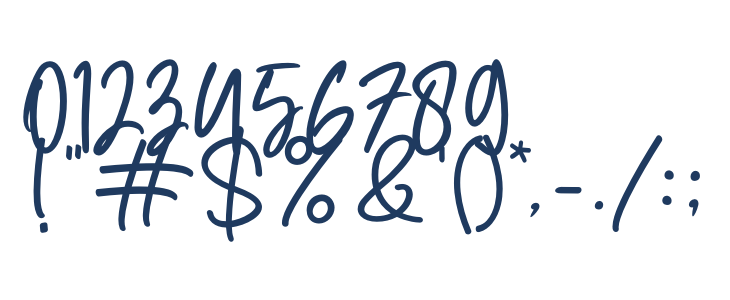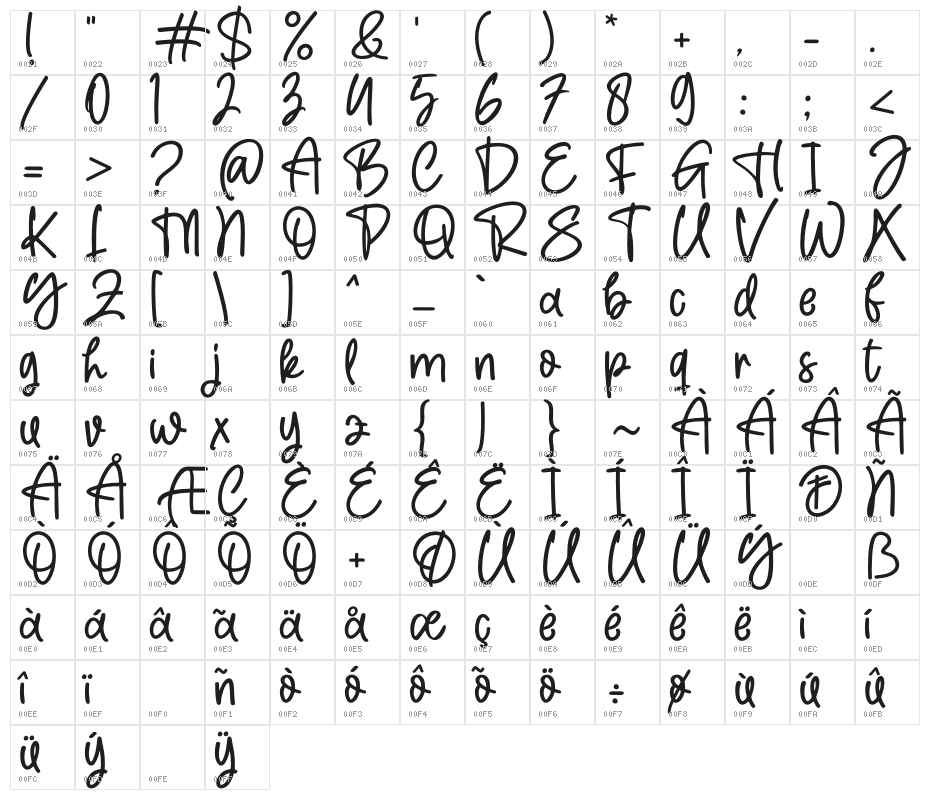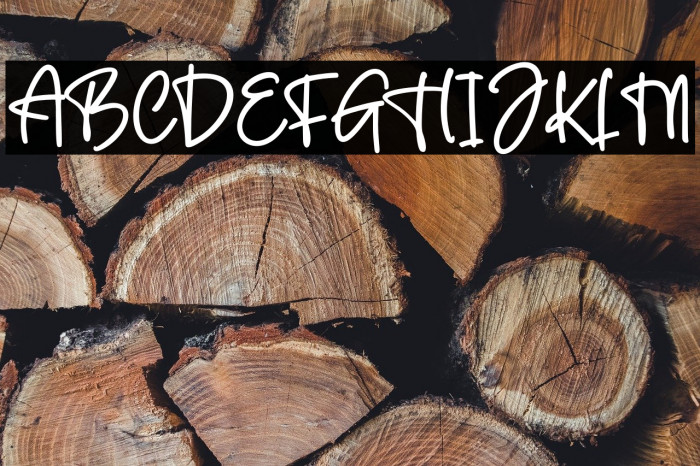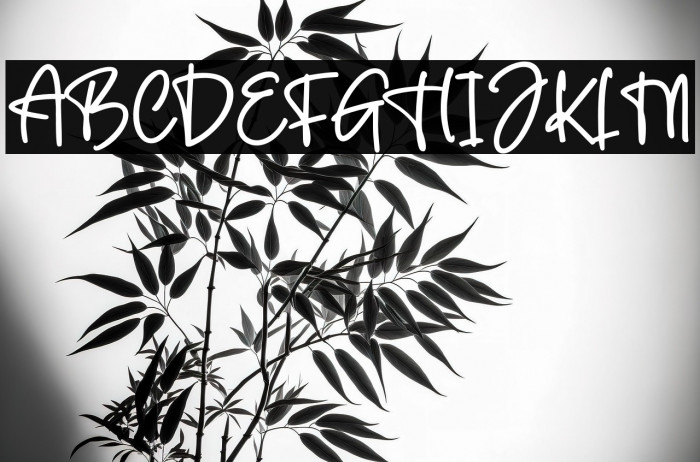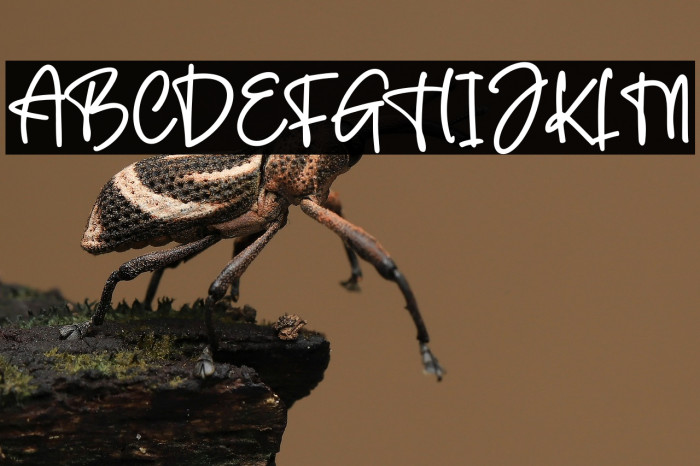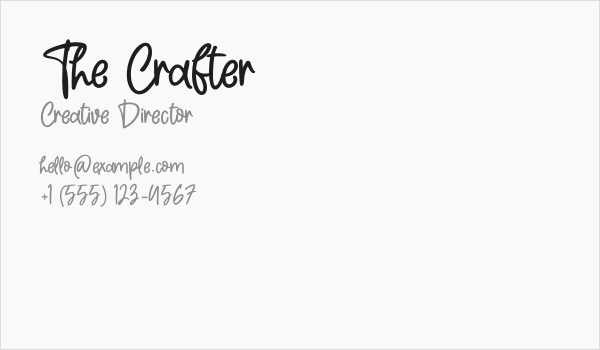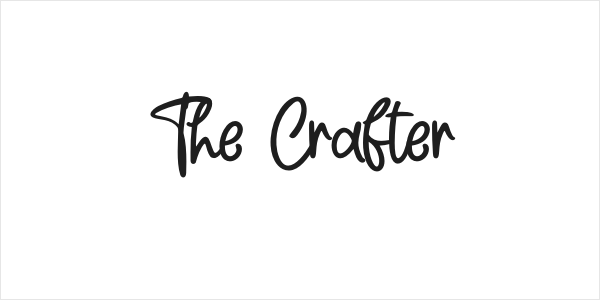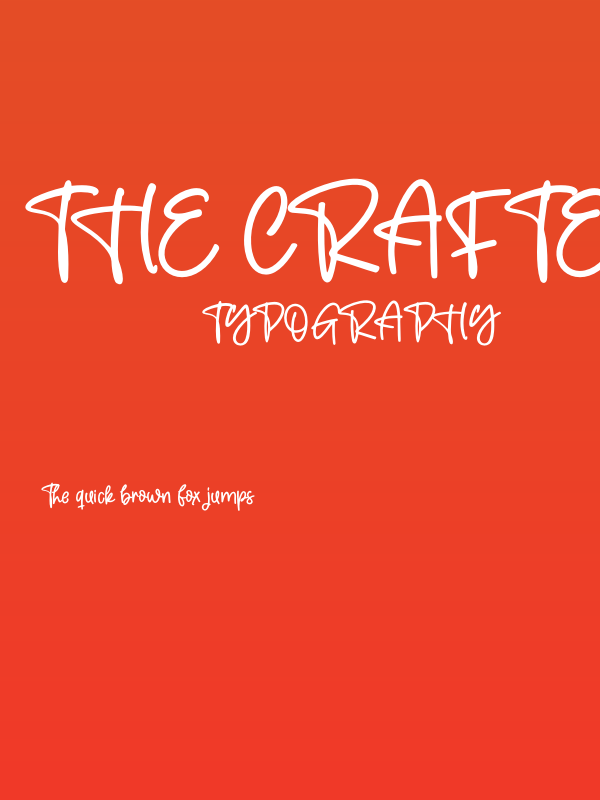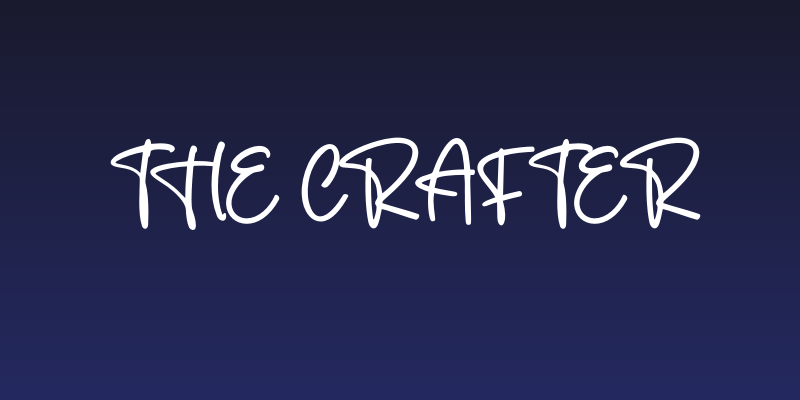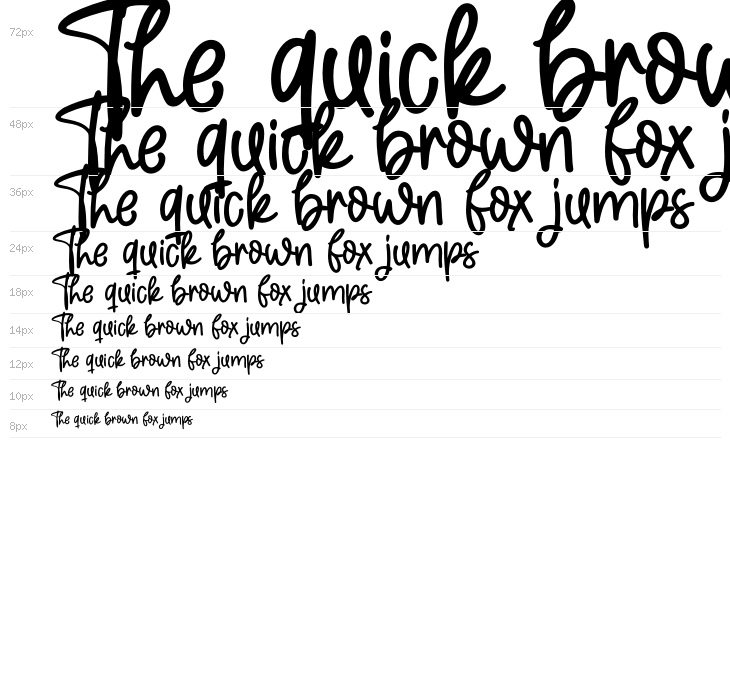
The Crafter Font
The Crafter Description
This font features a playful and energetic handwritten style, characterized by its fluid and dynamic strokes. The letters are slightly slanted, giving a casual and informal appearance. The uppercase and lowercase letters maintain a consistent flow, with rounded edges and a smooth, continuous line that mimics natural handwriting. The numbers and special characters follow the same lively style, making them easily readable while retaining the font's unique charm. This font is perfect for projects that require a personal touch, such as invitations, greeting cards, and creative branding.